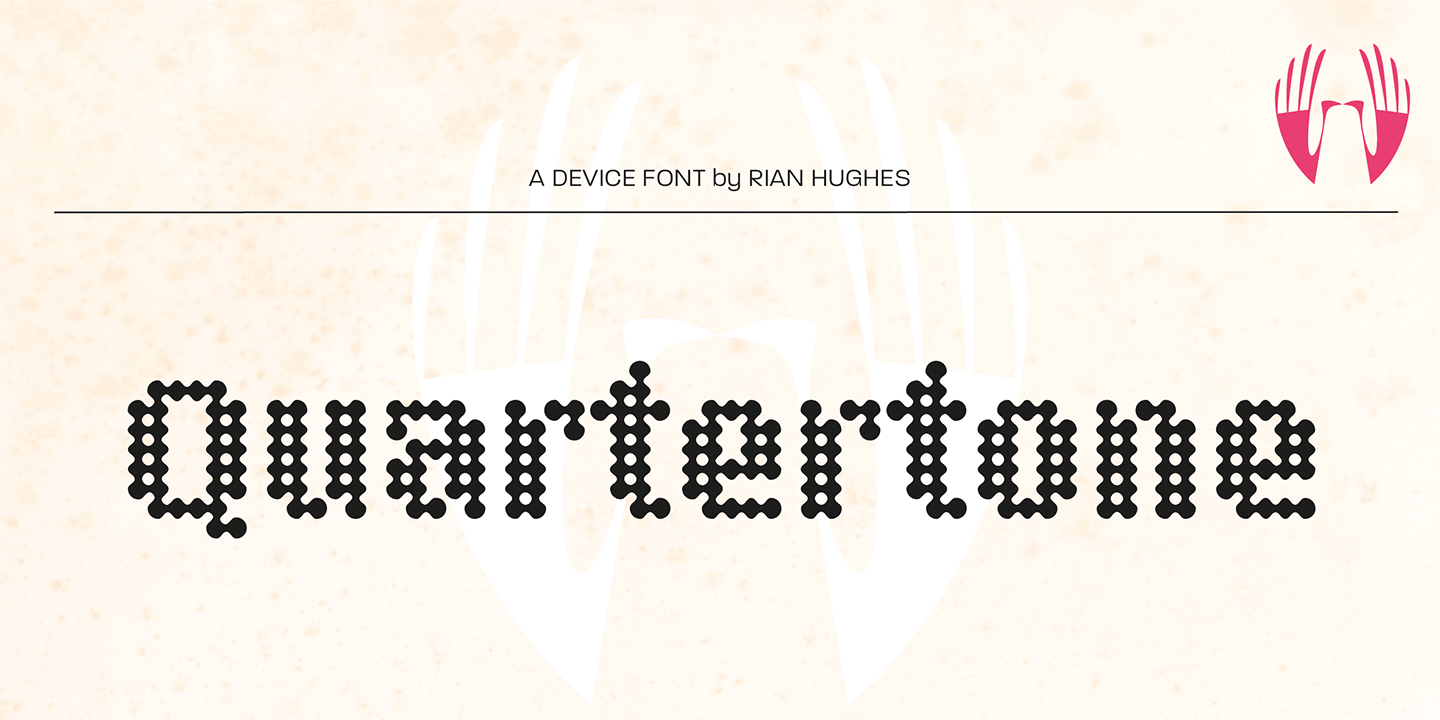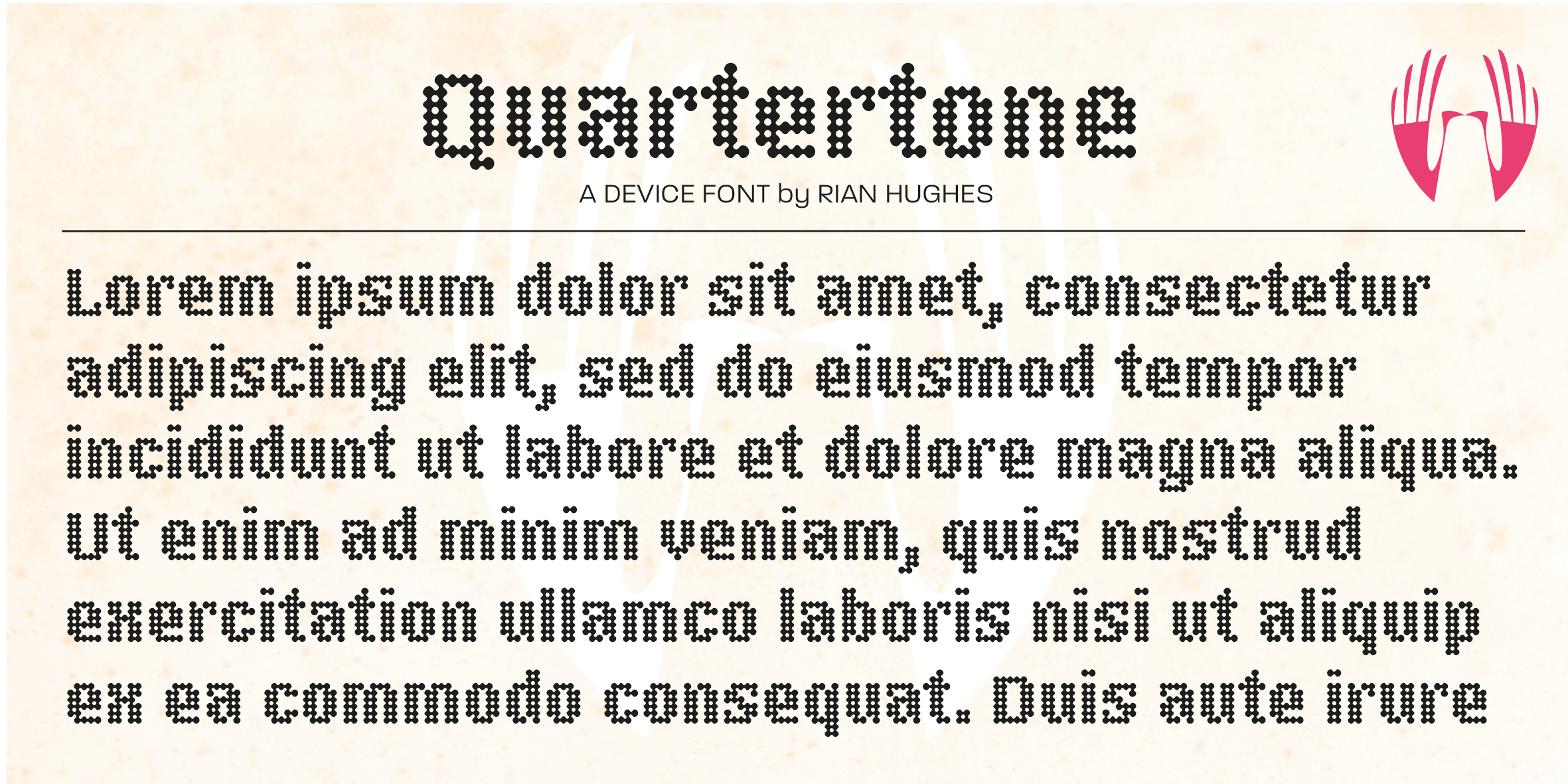
Quartertone
Font Family by Device
Quartertone is a single-style display font from Device with a distinctly digital, grid-based look. Its bitmap-inspired construction, pixelated texture, and geometric monoline forms give it a retro-computing voice that feels both technical and decorative.
With cues drawn from dot-matrix graphics and modular letterbuilding, it brings a crisp, screen-born character to headlines, posters, branding, packaging, and other display-driven work. It is especially well suited to projects that want a tech-forward, digital, or intentionally lo-fi visual language.
As a one-style family, it offers a focused aesthetic: sharp, stylized, and unmistakably rooted in early digital culture. Use it when you want type that feels engineered, playful, and visually specific rather than neutral.